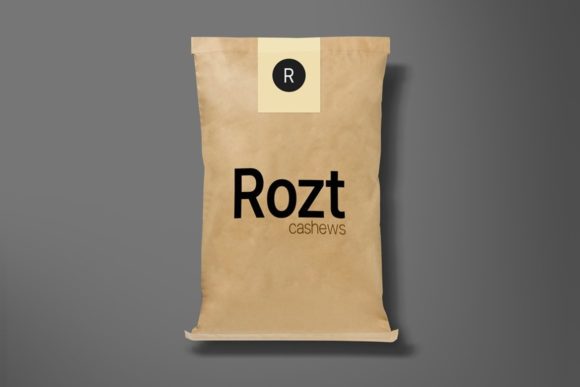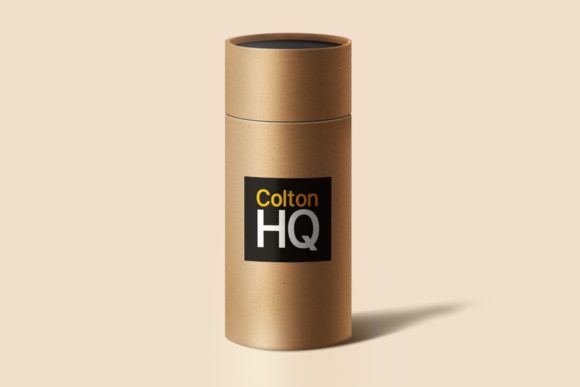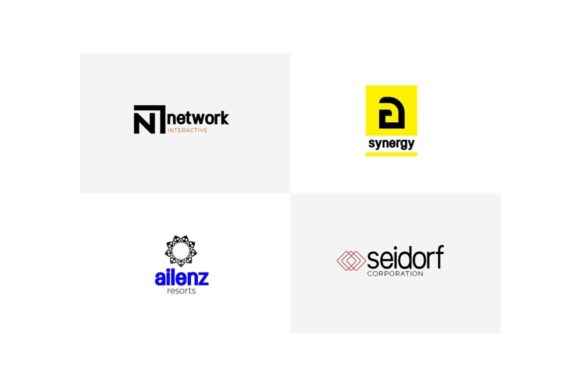
Introduction to Orion Pro Font
Have you ever stared at a blank canvas, waiting for the perfect font to spark your next creative project? For designers, finding the right font can be a daunting task, but what if you stumbled upon a versatile and modern sans-serif typeface that could elevate your entire design? Welcome to the world of Orion Pro Font – a game-changing font that’s about to revolutionize your creative workflow.
As a design resource, Orion Pro Font is a gem waiting to be discovered. Its sleek and sophisticated design makes it perfectly suitable for logotypes, headlines, branding, marketing graphics, and corporate identities. Whether you’re working on a web project or a print publication, this high-quality font is sure to impress. And the best part? It’s available for free download, giving you the freedom to experiment with its endless possibilities.
Key Features of Orion Pro Font
- High-quality design resource for creative projects, ideal for logos, graphics, and branding materials.
- Features a clean and modern design, making it perfect for a wide range of creative projects, from digital to print media.
- Includes a large character set, supporting a variety of languages and making it a versatile design resource.
Honest Review: Orion Pro Font
I recently had the chance to experiment with the Orion Pro Font, and I must say it’s a great addition to any designer’s toolkit. This high-quality font is perfect for creating visually appealing designs for various creative projects.
Here are some of the things that I found to be particularly useful:
- ✨ The Orion Pro Font offers a range of styles, from bold and modern to elegant and refined, making it an excellent choice for a wide range of design applications.
- ✨ The font is highly legible, even at smaller font sizes, which is ideal for projects that require a lot of text.
- ⚠️ The font does not support all languages, which may be a concern for designers working on multilingual projects.
Overall, I’m impressed with the Orion Pro Font. It’s a solid choice for designers looking for a high-quality font that can elevate their creative projects. While it may have some limitations, the benefits far outweigh the drawbacks.
Tips for Getting the Most Out of Orion Pro Font
The Orion Pro Font is ideal for creative projects, such as logos, graphics, and presentations. Its high quality and sleek design make it a popular choice among designers and non-designers alike.